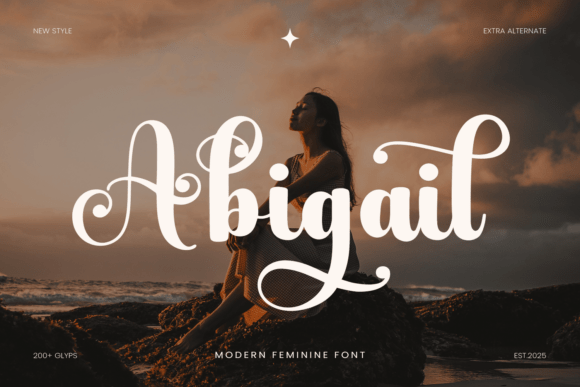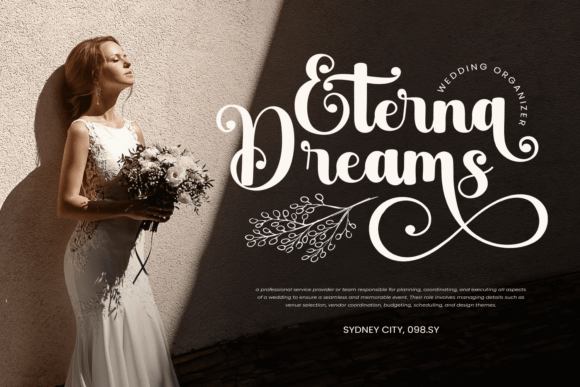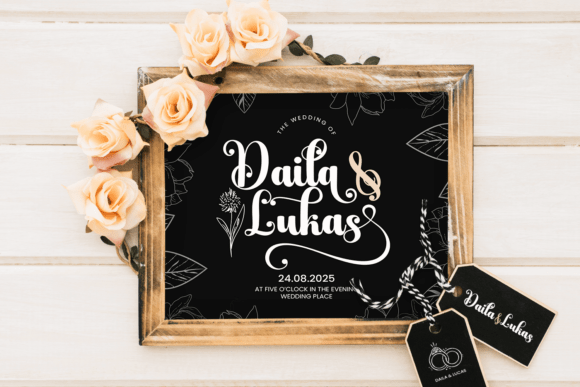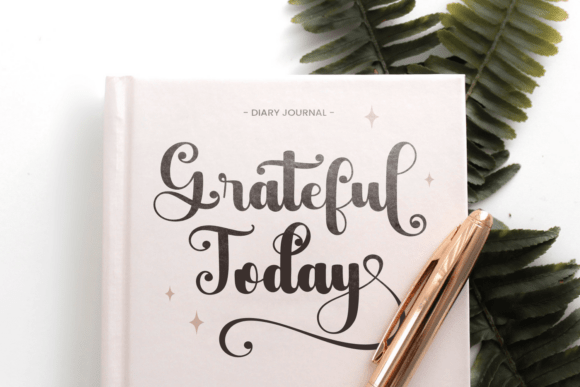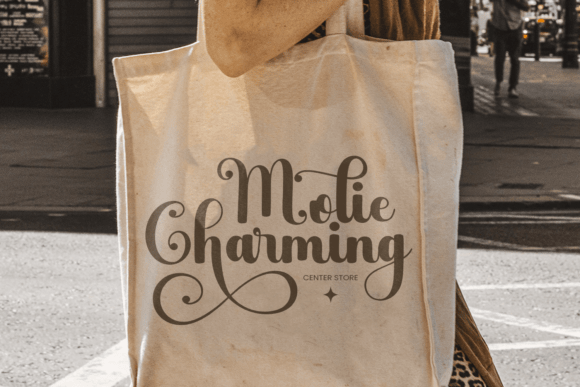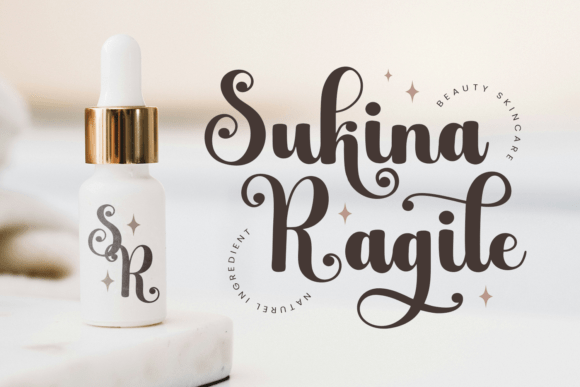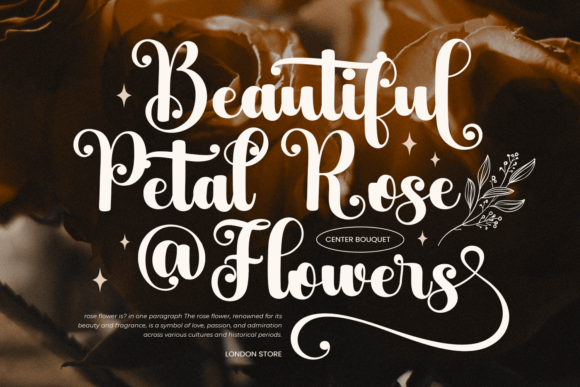
Find Your Perfect Script: The Allure of Abigail Font
Have you ever stumbled upon a font that instantly sparks creativity and transports you to a world of elegance and sophistication? For designers and crafty enthusiasts, this magical moment is a treasured experience that can elevate a project from ordinary to extraordinary. It happened to us when we discovered Abigail Font – a beautiful and refined script handwritten typeface that adds a touch of romance and charm to any design.
Abigail Font is a versatile and timeless choice for creating delicate and whimsical designs that capture attention effortlessly. Whether you’re crafting wedding invitations, birthday cards, or seasonal greetings, this font exudes a sense of refinement that is simply irresistible. As a valuable asset for designers, Abigail Font offers endless possibilities for creative expression and helps bring a project to life with its smooth and flowing strokes.
Abigail Font Key Features
- Font Family: Abigail is a script font, ideal for creative and elegant designs.
- Unique Characteristics: Abigail features a flowing, handwritten style with subtle flourishes and connecting strokes, making it perfect for invitations, quotes, and other creative applications.
Abigail Font Review
As a designer, I’ve had the chance to work with many fonts, but Abigail Font caught my attention. Here’s my honest review.
- Abigail Font has a beautiful, elegant design that’s perfect for formal or luxury brands. The intricate details and subtle flourishes give it a high-end feel.
- The font is highly legible, even at small sizes, making it ideal for body text or titles.
- Abigail Font comes in a range of weights and styles, allowing for a lot of flexibility in design.
- The font may be too ornate for some designs, particularly those that require a more modern or minimalist aesthetic.
- Abigail Font may not be suitable for bold, attention-grabbing headlines, as it’s more suited to elegant, refined designs.
- The font’s intricate details may make it difficult to read at very small sizes or on low-resolution displays.
Abigail Font is a stunning font that’s perfect for designers looking to add a touch of elegance to their projects. While it may have some limitations, its beautiful design and high legibility make it a great choice for formal or luxury brands. With careful use, Abigail Font can add a level of sophistication and refinement to any design.
Abigail Font is ideal for:
- Creating elegant and sophisticated headings.
- Designing custom typography for logos, business cards, or brochures.
- Adding a touch of sophistication to PowerPoint presentations or Word documents.